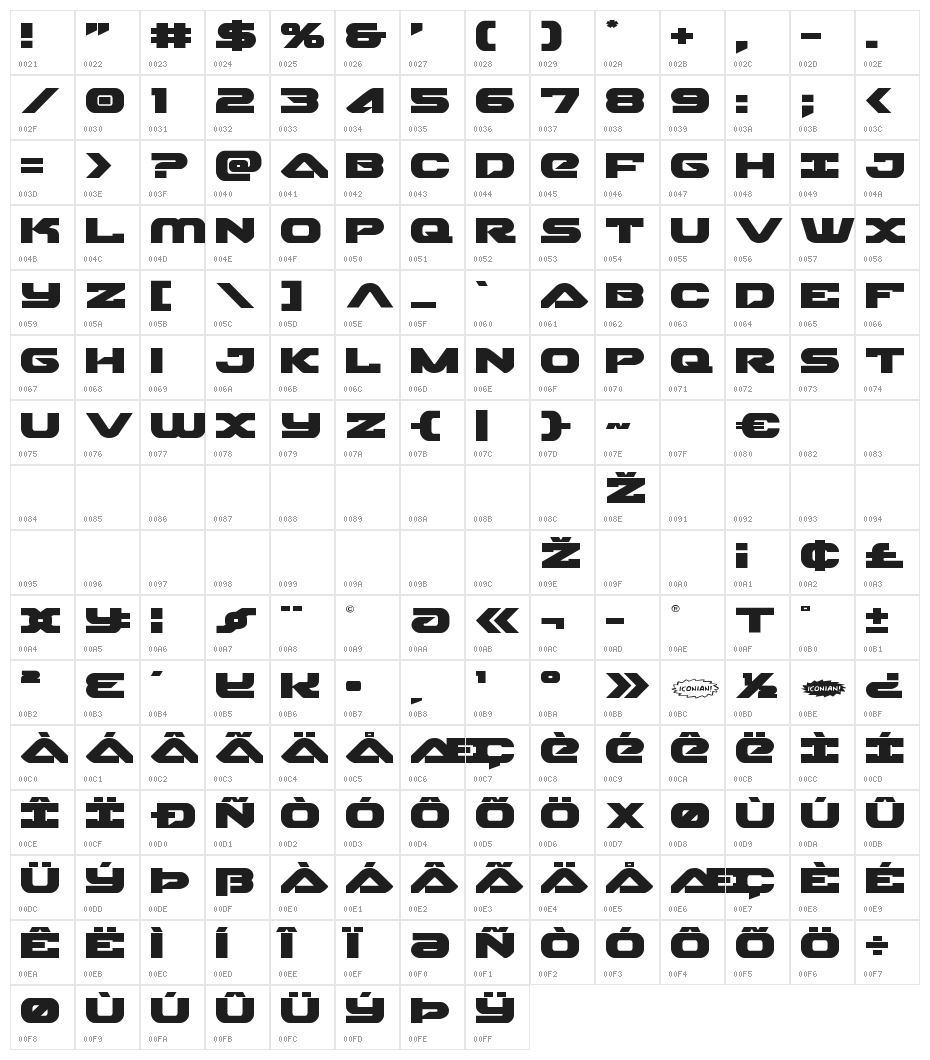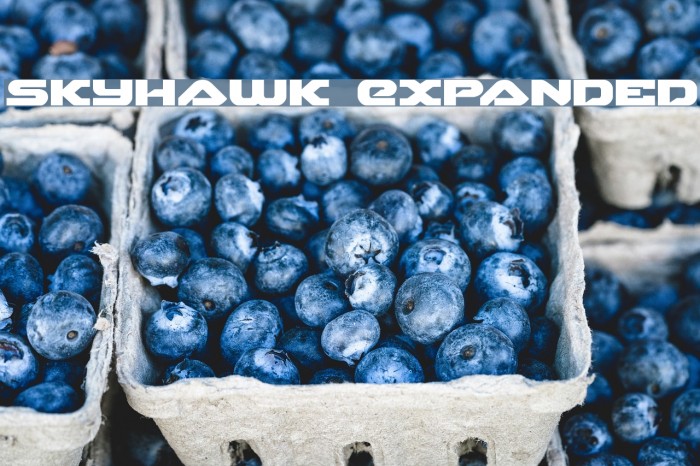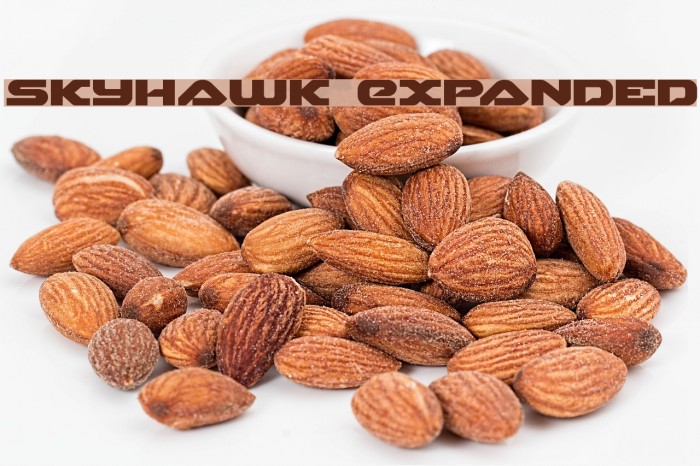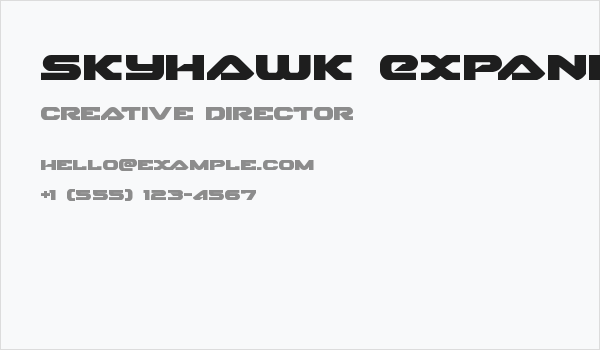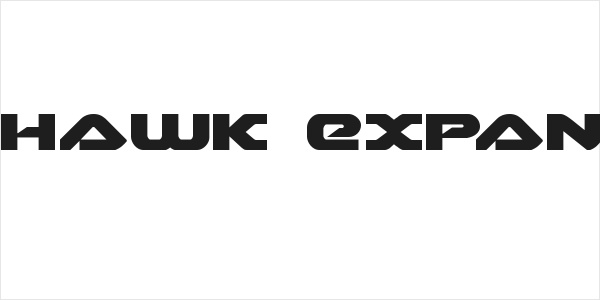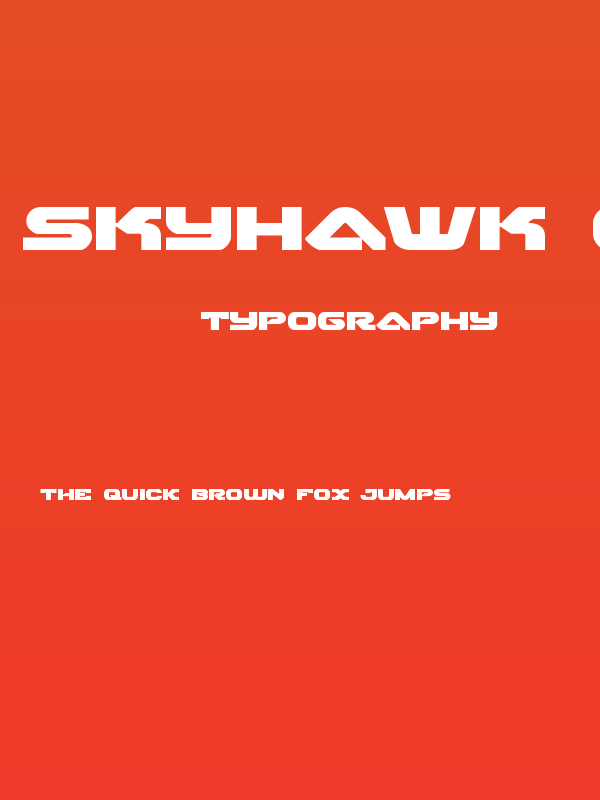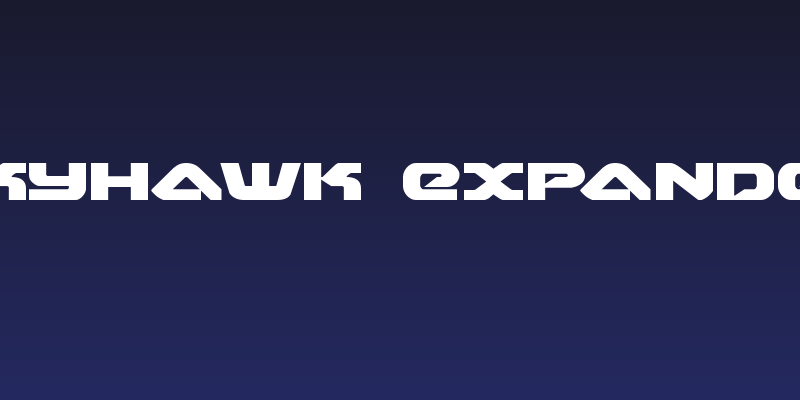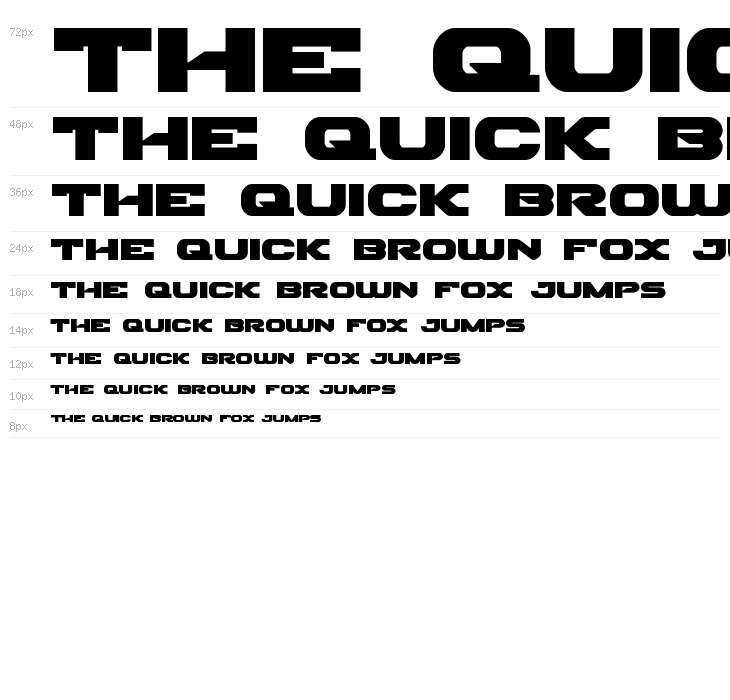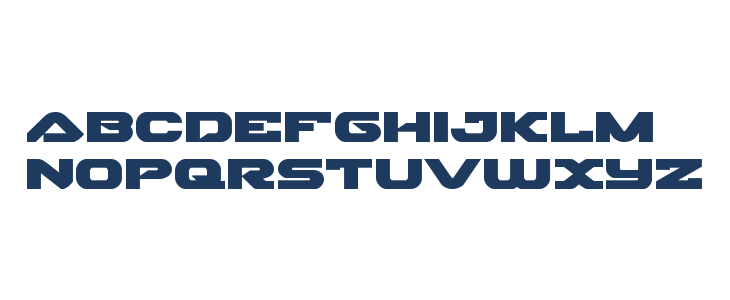
Skyhawk Expanded Font
Skyhawk Expanded Description
This font features a bold, futuristic design with a strong geometric influence. The characters are wide and have a distinct angular style, giving them a modern and dynamic appearance. The uppercase letters are particularly striking, with sharp edges and a uniform height that creates a cohesive look. The numbers and special characters maintain this bold aesthetic, ensuring consistency across all elements. The font's expanded width and bold weight make it ideal for impactful headlines and attention-grabbing designs.